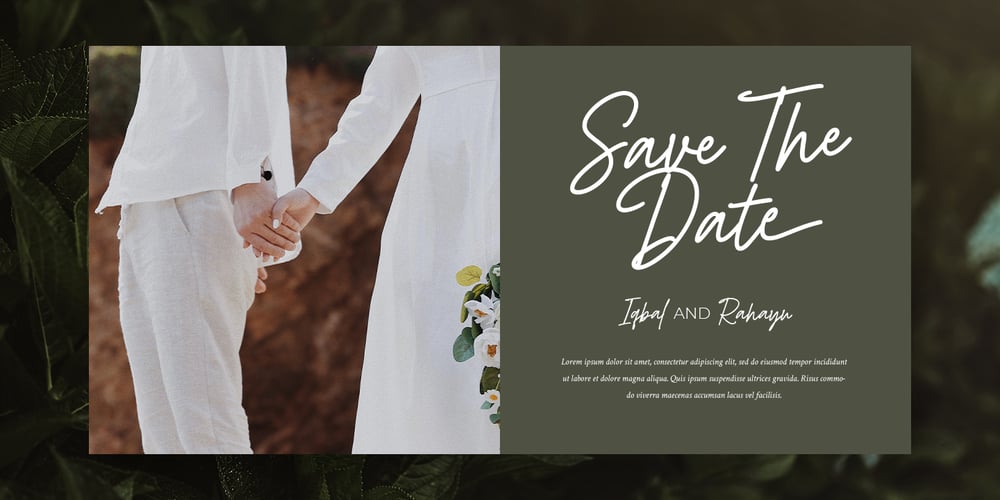
Jack History
Jack History font
Jack History Font Family was designed by Donis Miftahudin and published by Ditatype. Jack History contains 1 styles and family package options. Jack History is a unique, amazing font inspired by creative, experimental handwritings of which letters are always connected to each other to create surprising, dynamic flows, and adopt unconventional proportions and variations. Some of the letters may actually seem bigger or smaller than the others in free moving and curvy lines to express bravery and freedom nuances of the font.Differences in proportions and letter style changes of the font have become the design’s integral parts. Despite the absence of strict rules, creativity and courage to combine the connected letters in a unique way is all that matters because this script font offers extraordinary attractiveness and uniqueness in all designs. Furthermore, the connected letter flows in various proportions reflect some explorations and innovations in the handwritings. You may then apply this font for big text sizes for a legibility reason and enjoy the available features here.Features: Alternates Ligatures Multilingual Supports PUA Encoded Numerals and Punctuations Jack History fits best for any design projects requiring artistic, elegant displays such as wedding invitations, greeting cards, merchandise designs, and more. For such artistic and elegant displays, this script font is also applicable for logo designs, posters, and packaging. Find out more ways to use this font by taking a look at the font preview.Thanks for purchasing our fonts. Hopefully, you have a great time using our font. Feel free to contact us anytime for further information or when you have trouble with the font. Thanks a lot and happy designing.